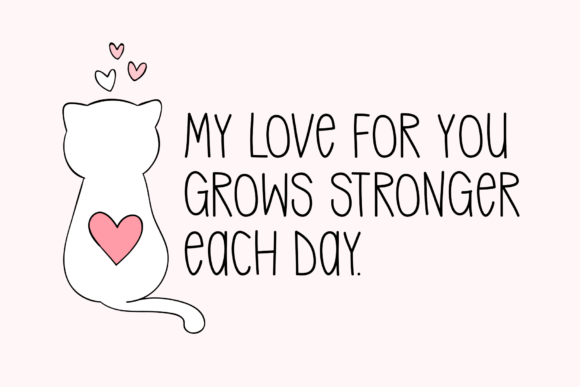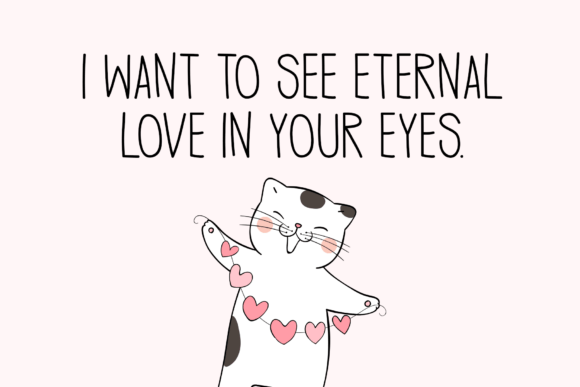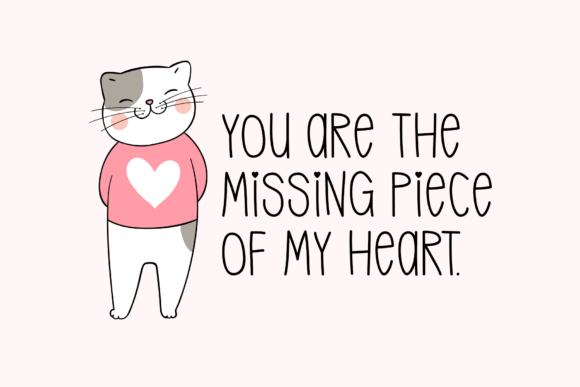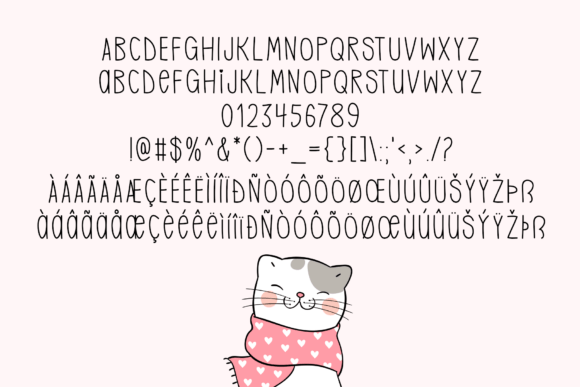
Introduction to Imagine Darling Font
Imagine Darling is a delightful display font that radiates charm and creativity.
Its smooth, flowing lines make it ideal for a variety of projects, including branding, t-shirts, flyers, website headers, and more Whether youโre designing for special occasions or everyday use, this font delivers a touch of warmth and playfulness that makes every piece stand out.
Key Features of Imagine Darling Font
Why Choose Imagine Darling Font?
Imagine Darling Font offers exceptional quality and versatility, making it a valuable addition to your design toolkit. Whether you’re creating for personal projects or commercial use, Imagine Darling Font delivers professional results.